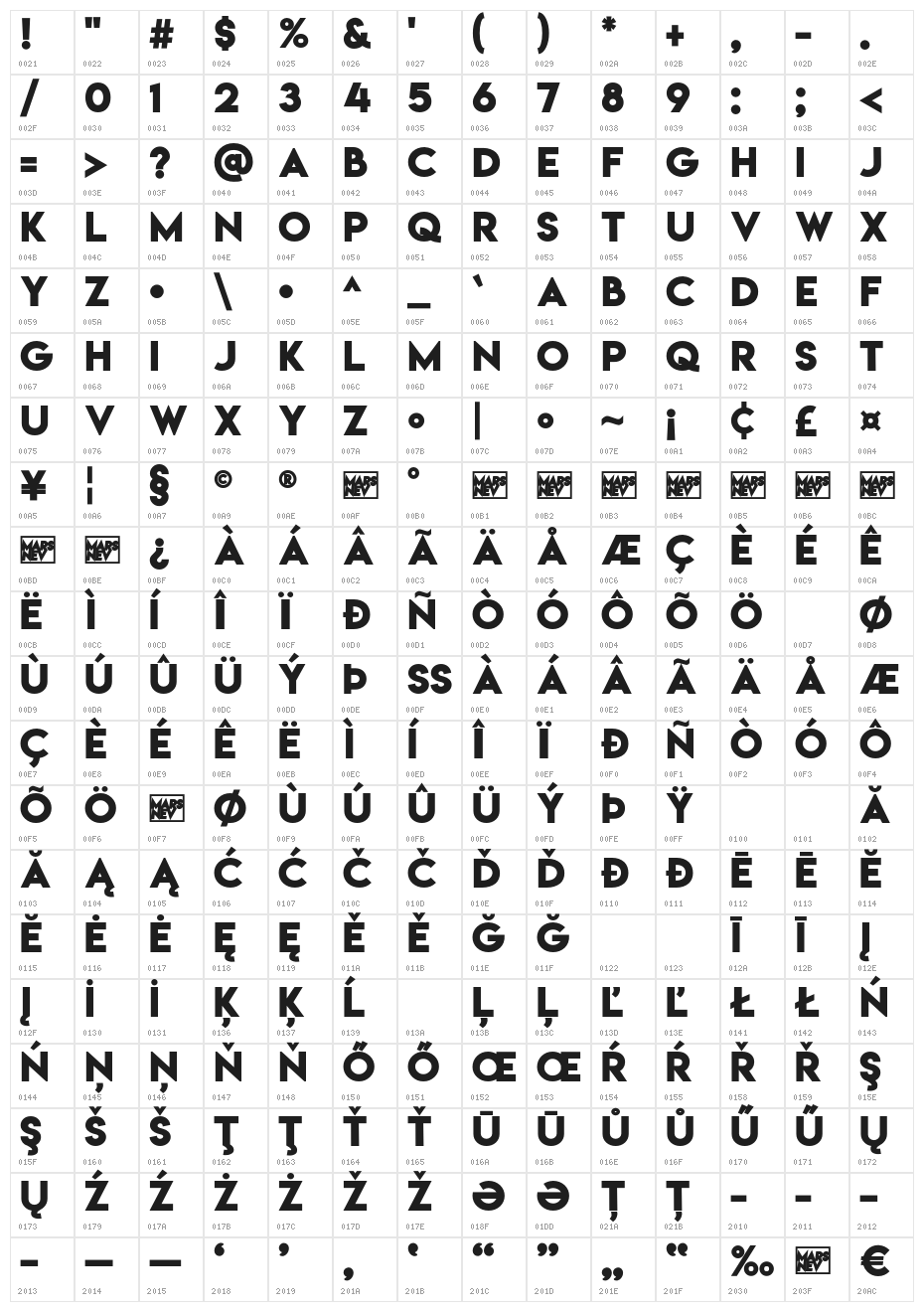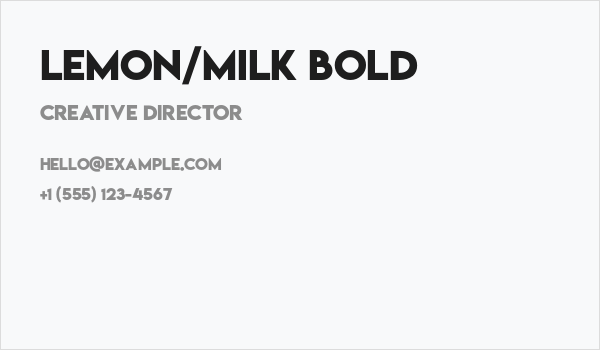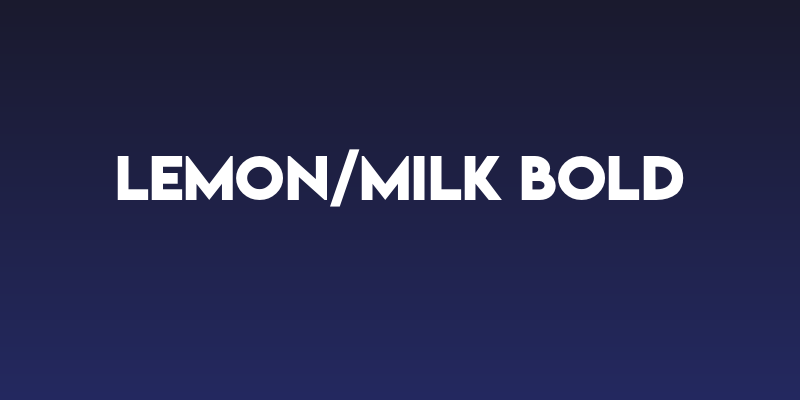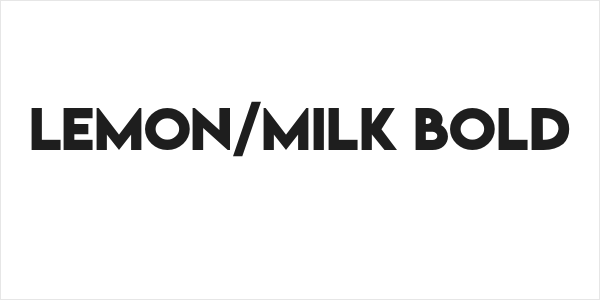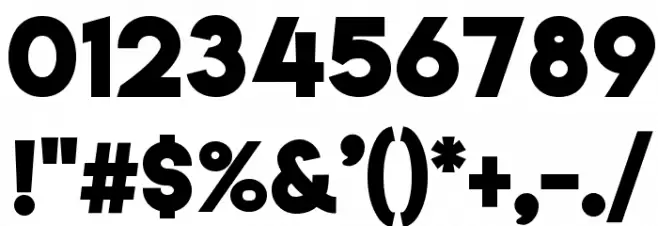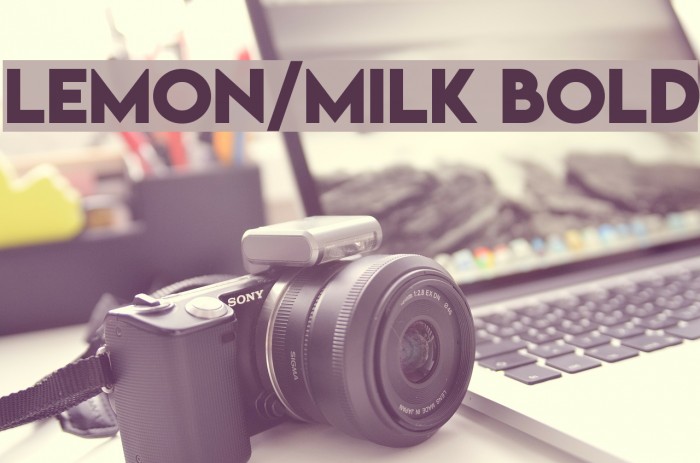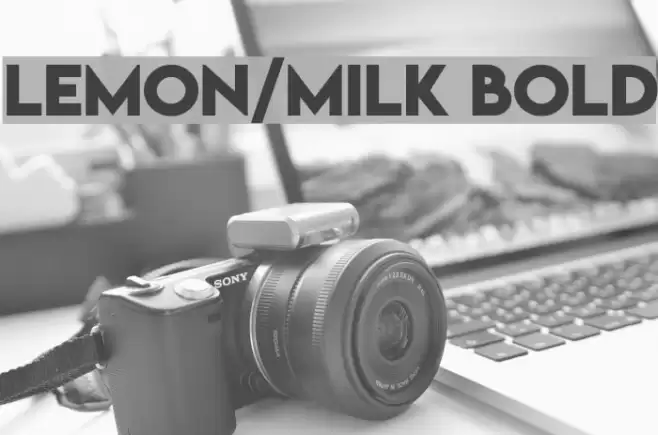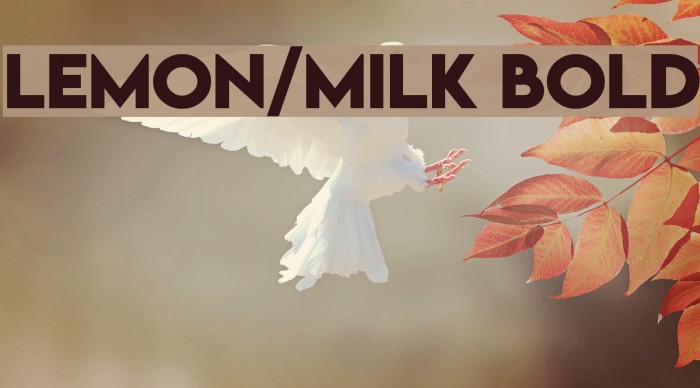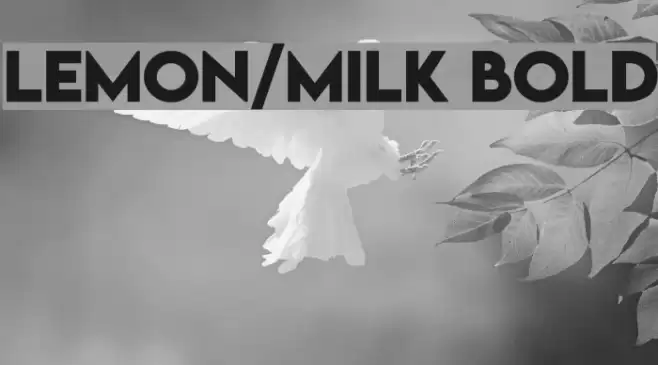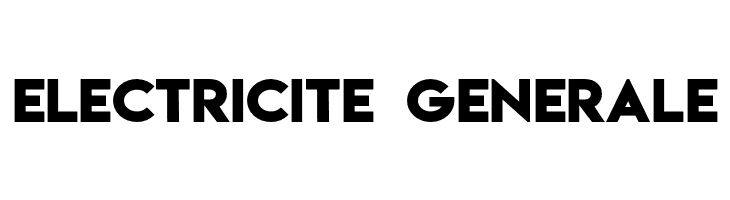
Lemon/Milk bold Font
Lemon/Milk bold Description
This font features a bold, geometric sans-serif style with clean lines and a modern aesthetic. The uppercase and lowercase letters are well-proportioned, with a consistent stroke width that gives it a strong and assertive presence. The numerals are equally bold, maintaining the font's cohesive look. Special characters are designed to complement the overall style, ensuring versatility across various applications. Its simplicity and clarity make it suitable for a wide range of design projects.